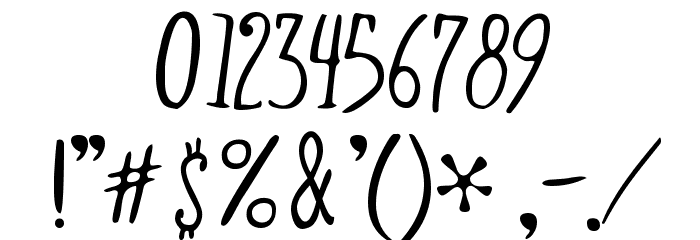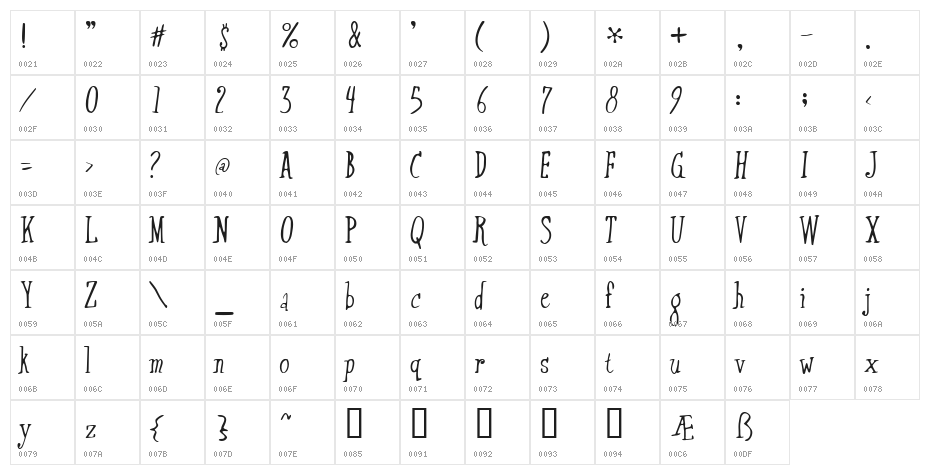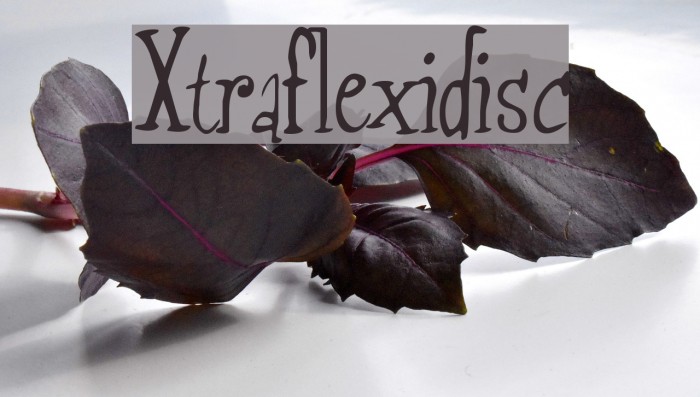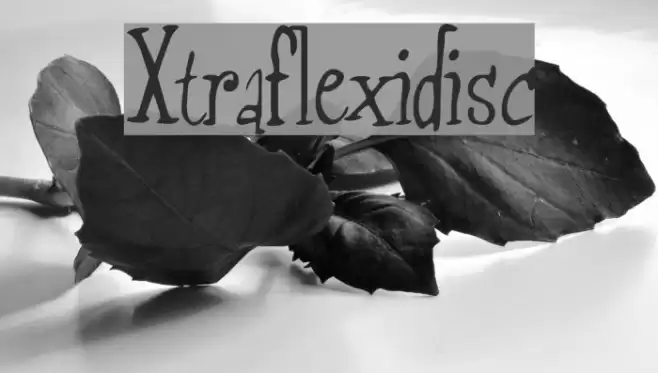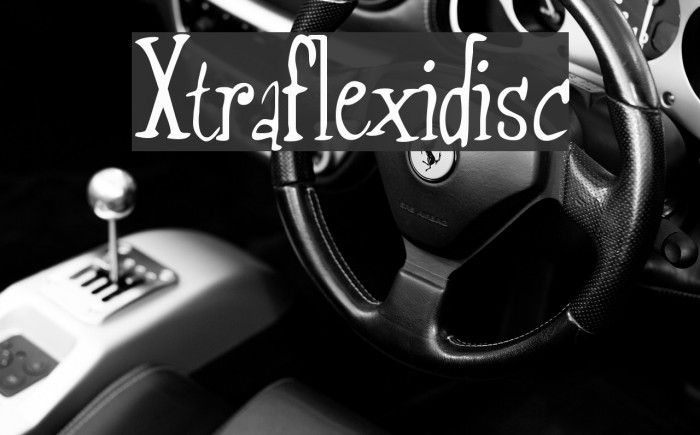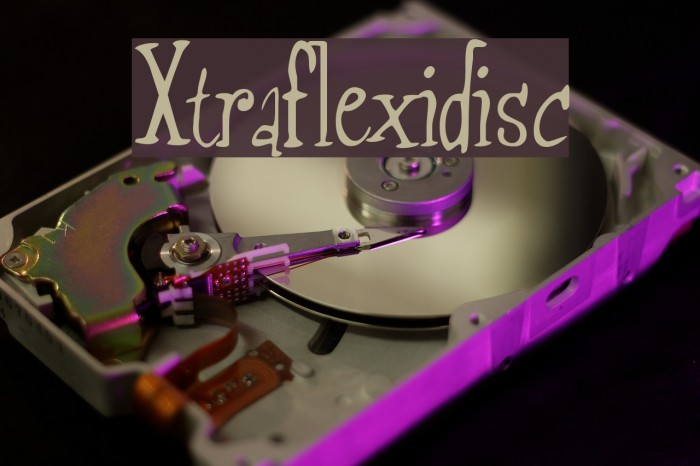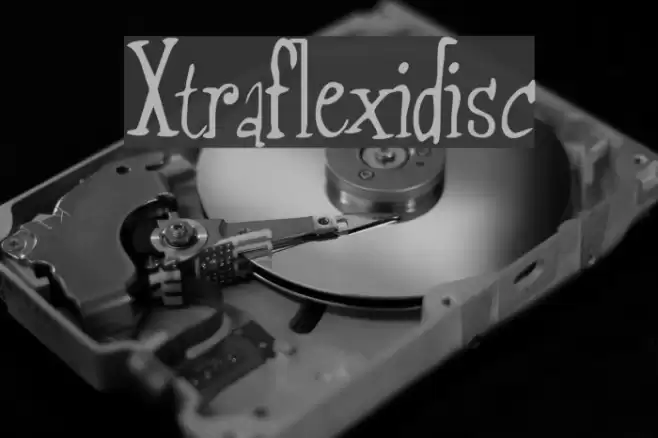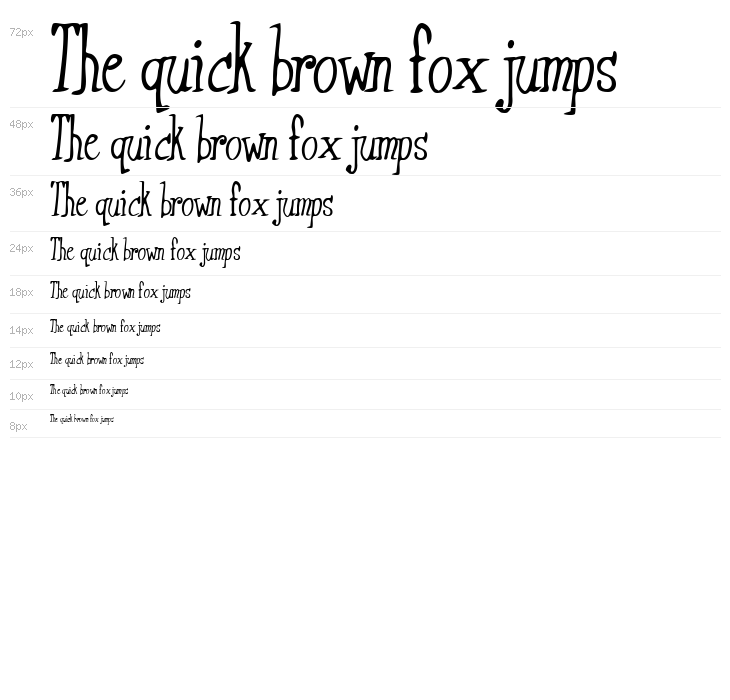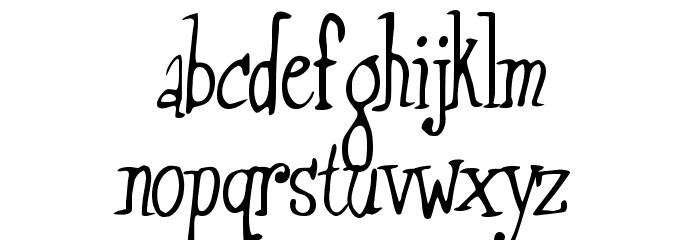
Xtraflexidisc Font
Xtraflexidisc Description
This font features a playful and whimsical style with a hand-drawn appearance. The characters have a slightly irregular baseline, adding to the casual and informal feel. The strokes are varied, with some letters having thicker downstrokes and thinner upstrokes, creating a dynamic and lively texture. The uppercase letters are tall and narrow, while the lowercase letters are more rounded and compact. Numbers and special characters maintain the same playful aesthetic, making this font suitable for creative and artistic projects.